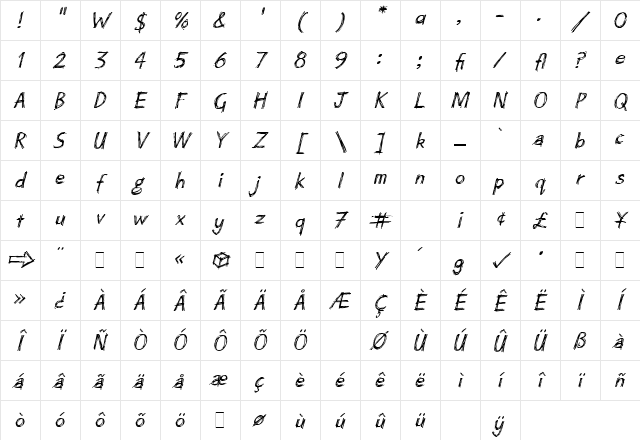
Complete Scratch LET Plain glyph index. Displaying only characters natively supported by Scratch LET Plain font.
Scratch LET is a composed and adaptable typeface that performs quietly and consistently across a wide range of design contexts.